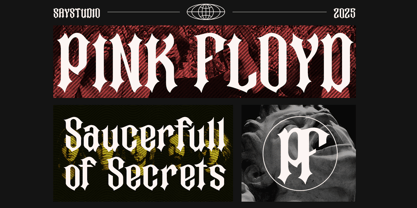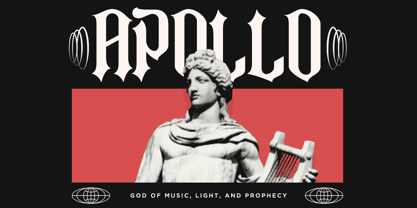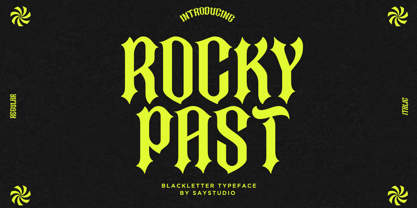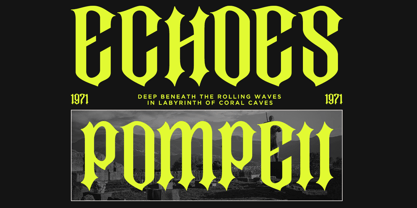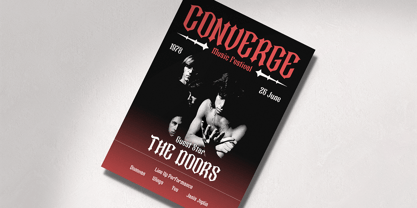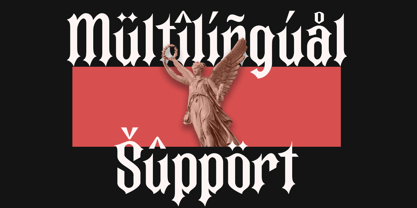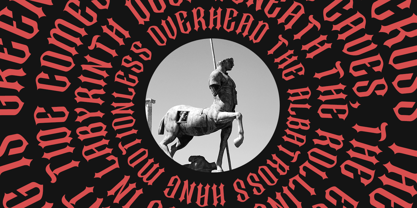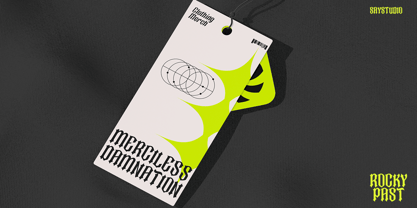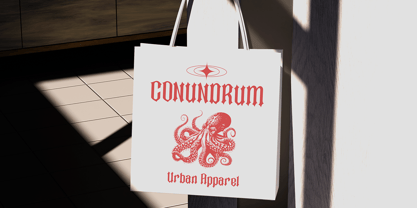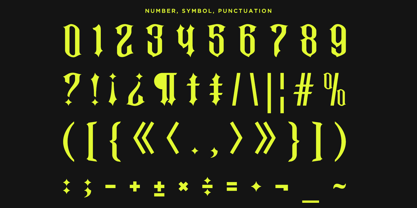
Rocky Past
by Say Studio
The Rocky Past Font Family was designed by Mussyayin and published by Say Studio. Rocky Past contains 2 styles and family package options. More about this family
Rocky Past is a blackletter display font designed with a concept of dark beauty and modern style. The font combines elements of both modern sans serif and blackletter styles, creating a striking and distinctive appearance. including alternates character, this font is perfect for creating bold and impactful designs.
Rocky Past is perfect for your design needs such as poster design, logo design, branding, apparel, book, magazine, etc.
- Multilingual Support
- Alternates Character
Designers: Mussyayin
Foundry: Say Studio